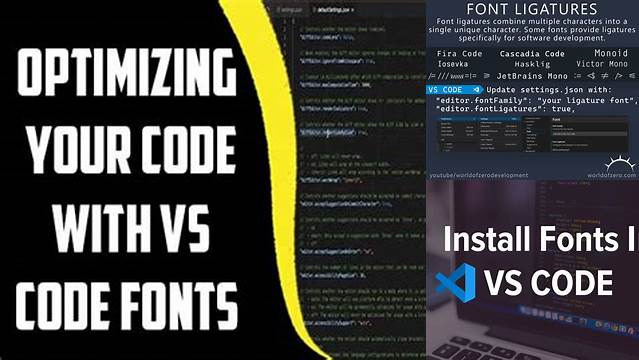
Top VSCode Fonts: Enhance Your Coding Experience
Choosing the best VSCode editor fonts can significantly impact your coding experience. A well-chosen font not only improves readability but also reduces eye strain and enhances overall productivity. Let’s dive into some of the top fonts available for VSCode that can transform the way you code, making it more enjoyable and efficient.
1. Understanding the Importance of Font Choice in VSCode
When you're spending hours coding, the best VSCode editor fonts can really make or break your experience. Think about it: staring at a screen full of code all day, every day. The right font can reduce eye strain, improve readability, and even make you a more efficient coder. A font that's easy on the eyes allows you to quickly scan through your code, spot errors, and understand complex logic without squinting or getting a headache. Plus, let's be real, a visually appealing font just makes the whole coding process more enjoyable. No one wants to code in a font that looks like it's straight out of a 1980s typewriter! So, investing a little time in finding the best VSCode editor fonts for your needs is totally worth it. You'll be doing your eyes (and your productivity) a huge favor. Consider it part of your coding setup, right alongside your keyboard and monitor. Remember, happy eyes equal happy coding!
2. Monospaced Fonts: Why They Are Preferred for Coding
Monospaced fonts are basically the superheroes of coding. What makes them so special? Well, in a monospaced font, every character takes up the same amount of horizontal space. This means that whether you're typing an 'i' or a 'W', each letter gets the same width. Why is this important for the best VSCode editor fonts? Because it creates a uniform, grid-like appearance in your code. This uniformity makes it incredibly easy to visually align code blocks, spot indentation errors, and generally read your code more clearly. Imagine trying to align columns of numbers or code in a font where some characters are wider than others—total chaos, right? Monospaced fonts eliminate that chaos, making your code cleaner and more readable. Plus, many popular coding fonts are monospaced, meaning you have plenty of options to choose from. So, if you're serious about writing clean, readable code, monospaced fonts are definitely the way to go. They're a staple in the coding world for a reason!
3. Top Font Recommendations for VSCode in 2024
Alright, let’s get to the fun part: picking out some awesome fonts! For the best VSCode editor fonts in 2024, there are some fantastic options. Fira Code is a super popular choice. It includes programming ligatures, which combine certain character combinations into single symbols, making your code more readable and visually appealing. Another great option is JetBrains Mono, designed specifically for developers. It’s clean, clear, and optimized for long hours of coding. Source Code Pro is another favorite, known for its excellent readability and versatility. It's a classic choice that works well for almost any coding language. And if you're looking for something a bit different, check out Cascadia Code, a font developed by Microsoft. It’s modern, sleek, and also includes ligatures. Each of these fonts has its own unique style and features, so it’s worth trying a few to see which one you like best. Remember, the best VSCode editor fonts is the one that feels the most comfortable and readable to you. Happy font hunting!
4. Fira Code: The Popular Choice with Ligatures
Fira Code has become a rockstar in the coding font world, and for good reason. The main appeal? Ligatures! These aren't your grandma's ligatures from calligraphy class. In Fira Code, ligatures combine common coding symbols (like !=, =>, or ===) into single, more readable characters. This makes your code look cleaner and can help you spot logical errors more easily. For instance, instead of seeing three separate equal signs, you see one continuous line, which is much easier on the eyes. Beyond ligatures, Fira Code is also just a well-designed monospaced font. It’s clear, legible, and comes in a variety of weights to suit your preferences. Many developers swear by Fira Code because it reduces visual clutter and makes code easier to scan. If you haven't tried it yet, give it a shot! Installing it in VSCode is super easy, and you might just find that it transforms your coding experience. It’s definitely a contender for the best VSCode editor fonts, especially if you love those fancy ligatures.
5. JetBrains Mono: Designed Specifically for Developers
JetBrains Mono is like that friend who always has your back. This font was actually created by JetBrains, the folks behind some of the most popular IDEs out there. So, you know it’s designed with developers in mind. What makes JetBrains Mono so great? Well, it's all about readability. The font has been carefully crafted to reduce eye strain, even during long coding sessions. The characters are clear and distinct, and the font's design helps you quickly differentiate between similar characters (like 'l' and '1', or '0' and 'O'). This is a huge win for avoiding typos and logical errors. Plus, JetBrains Mono supports a wide range of programming languages and comes in several weights and styles. It's also free, which is always a bonus! If you're looking for a font that's specifically tailored to the needs of developers, JetBrains Mono is definitely worth checking out. It might just become your new go-to for the best VSCode editor fonts.
6. Source Code Pro: A Versatile and Readable Option
Source Code Pro is like the reliable, all-purpose tool in your coding arsenal. It's a classic monospaced font that's known for its excellent readability and versatility. Designed by Adobe, Source Code Pro is clear, clean, and easy on the eyes, making it a great choice for long coding sessions. What sets it apart is its balanced design. The characters are well-proportioned, and the font works well in a variety of sizes and resolutions. This means it looks good on both small laptop screens and large external monitors. Source Code Pro also supports a wide range of characters, including those used in many different programming languages. Plus, it comes in multiple weights, so you can choose the style that best suits your preferences. If you're looking for a font that's both reliable and versatile, Source Code Pro is definitely worth considering. It's a solid choice for the best VSCode editor fonts that won't let you down.
7. Cascadia Code: Microsoft's Modern Font with Ligatures
Cascadia Code is Microsoft's sleek and modern contribution to the world of coding fonts. What makes it special? First off, it includes ligatures, just like Fira Code. These ligatures combine common coding symbols into single, more readable characters, making your code cleaner and easier to understand. But Cascadia Code also has its own unique style. It's designed with a slightly more modern and geometric look, which some developers find particularly appealing. The font is also designed to be highly readable, with clear and distinct characters. Microsoft developed Cascadia Code for use in its new Windows Terminal, but it works perfectly well in VSCode and other code editors. If you're looking for a font that's both modern and functional, Cascadia Code is definitely worth a try. It might just be the best VSCode editor fonts you've been searching for.
8. Consolas: A Long-Standing Favorite
Consolas is like the old faithful friend in the world of coding fonts. It's been around for a while and has gained a loyal following among developers. Why? Because it's a solid, reliable, and highly readable font. Consolas was designed by Microsoft and has been included in Windows operating systems for years, so many developers are already familiar with it. What makes Consolas so appealing is its clarity and simplicity. The characters are well-defined, and the font is easy on the eyes, even during long coding sessions. It's a no-frills font that just gets the job done. While it doesn't have fancy ligatures or a super modern design, Consolas is a great choice if you're looking for a dependable and comfortable font for coding. It's a classic for a reason and remains a strong contender for the best VSCode editor fonts.
9. Dank Mono: A Premium Option with a Unique Aesthetic
Dank Mono is the fancy, premium option in the coding font world. It's not free like many of the other fonts on this list, but it has a unique aesthetic that some developers are willing to pay for. What makes Dank Mono so special? Well, it has a distinctive, slightly rounded design that gives it a warm and approachable feel. The characters are clear and well-defined, and the font is designed to be highly readable. Dank Mono also includes ligatures, which combine common coding symbols into single, more readable characters. However, the ligatures in Dank Mono are a bit more subtle and refined than those in some other fonts. If you're looking for a font that's both functional and visually appealing, Dank Mono is definitely worth considering. Just be prepared to shell out a bit of cash for it. It might just be the best VSCode editor fonts if you value that unique aesthetic.
10. Operator Mono: Another Stylish Paid Font
Operator Mono is another stylish, paid font that's popular among developers who want a premium coding experience. Like Dank Mono, it's not free, but it offers a unique look and feel that some developers find worth the investment. What makes Operator Mono stand out? It has a distinctive italic style that's used for comments and keywords, which can help you visually differentiate different parts of your code. The font also has a clean and modern design, with clear and readable characters. Operator Mono also includes ligatures, which combine common coding symbols into single, more readable characters. However, the ligatures in Operator Mono are a bit more subtle and refined than those in some other fonts. If you're looking for a font that's both functional and visually appealing, and you're willing to pay for it, Operator Mono is definitely worth checking out. It might just be the best VSCode editor fonts for you.
11. How to Install and Configure Fonts in VSCode
Okay, so you've found the best VSCode editor fonts of your dreams. Now what? Let's get it installed and set up in VSCode. First, you need to download the font file (usually a .ttf or .otf file) from the font's website or repository. Once you've downloaded the file, you need to install it on your operating system. On Windows, you can do this by right-clicking the font file and selecting "Install." On macOS, you can double-click the font file and then click "Install Font" in the Font Book app. After the font is installed, open VSCode and go to File > Preferences > Settings (or Code > Preferences > Settings on macOS). In the Settings editor, search for "editor.fontFamily." Then, enter the name of the font you installed, making sure to enclose it in single quotes (e.g., 'Fira Code'). You can also adjust the font size and line height in the settings if you want. That's it! Your new font should now be displayed in VSCode. Happy coding!
12. Adjusting Font Size and Line Height for Optimal Readability
Once you've picked out the best VSCode editor fonts, don't just stop there! Tweaking the font size and line height can make a huge difference in readability. Think of it like adjusting the seat and mirrors in your car – you want everything just right for optimal comfort and visibility. A font that's too small can strain your eyes, while one that's too large can make your code look cluttered. Similarly, line height (the space between lines of text) can affect how easily you can scan through your code. VSCode makes it easy to adjust these settings. Just go to File > Preferences > Settings (or Code > Preferences > Settings on macOS) and search for "editor.fontSize" and "editor.lineHeight." Experiment with different values until you find a combination that feels comfortable and easy on your eyes. A good starting point is a font size of 12-14 points and a line height of 1.5-1.6. But ultimately, the best VSCode editor fonts is the one that feels right for you!
13. Using Font Ligatures to Enhance Code Clarity
Font ligatures are like little magic tricks for your code. They combine certain character combinations into single, more readable symbols, making your code cleaner and easier to understand. For example, instead of seeing !=, a font with ligatures might display a single symbol that looks like an inequality sign. Similarly, => might become a single arrow. This can reduce visual clutter and make your code more readable, especially when you're dealing with complex expressions. Many popular coding fonts, like Fira Code and Cascadia Code, include ligatures. To enable ligatures in VSCode, you need to make sure you're using a font that supports them, and then enable font ligatures in your VSCode settings. Go to File > Preferences > Settings (or Code > Preferences > Settings on macOS) and search for "editor.fontLigatures." Then, set the value to true or 'enabled'. Once you've done that, your ligatures should start working! It’s one of the best VSCode editor fonts enhancements, you won't regret it!
14. Exploring Different Font Weights and Styles
Fonts aren't just about the characters themselves; they also come in different weights and styles, which can affect how your code looks and feels. Font weight refers to how thick or thin the characters are. Common weights include regular, bold, and light. A heavier font weight can make your code stand out more, while a lighter weight can give it a more subtle look. Font style refers to variations like italic or oblique. Italic is often used for comments or keywords to help them stand out from the rest of the code. VSCode allows you to customize the font weight and style in your settings. Just go to File > Preferences > Settings (or Code > Preferences > Settings on macOS) and search for "editor.fontWeight" and "editor.fontStyle." Experiment with different values to find a combination that you like. Keep in mind that not all fonts support all weights and styles, so you might need to try a few different fonts to find one that has the options you want. The best VSCode editor fonts is all about finding your perfect balance!
15. Considerations for Dark vs. Light Themes
When choosing the best VSCode editor fonts, it's essential to consider whether you're using a dark or light theme. What looks great on a light background might not be as readable on a dark background, and vice versa. For example, a font with a very thin weight might be difficult to read on a dark background, as the characters can blend in with the background. On the other hand, a font with a very heavy weight might be too overpowering on a light background. Similarly, the color of your text can affect how readable a font is. If you're using a dark theme, you might want to choose a font that's slightly lighter in color to provide better contrast. If you're using a light theme, you might want to choose a font that's slightly darker. VSCode allows you to customize the font color and background color in your settings, so you can tweak these settings to find a combination that works well for your chosen font and theme.
16. Fonts Optimized for Different Screen Resolutions
The best VSCode editor fonts is not a one-size-fits-all. A font that looks crisp and clear on a high-resolution monitor might appear blurry or pixelated on a lower-resolution screen. This is because fonts are designed with a specific pixel density in mind. If you're using a high-resolution display (like a 4K monitor), you'll want to choose a font that's optimized for high resolutions. These fonts typically have more detail and are designed to look sharp even at small sizes. On the other hand, if you're using a lower-resolution display, you might want to choose a font that's designed to be readable at lower resolutions. These fonts typically have simpler designs and are optimized for clarity rather than detail. Many font websites and repositories will indicate whether a font is optimized for high or low resolutions. You can also try experimenting with different fonts and sizes to see what looks best on your screen.
17. The Impact of Font Choice on Coding Speed and Accuracy
Believe it or not, the best VSCode editor fonts can actually impact your coding speed and accuracy. A font that's easy to read can help you quickly scan through your code, spot errors, and understand complex logic. This can save you time and reduce the likelihood of making mistakes. On the other hand, a font that's difficult to read can slow you down and make it harder to find errors. If you're constantly squinting or straining your eyes, you're more likely to make mistakes. The right font can also help you differentiate between similar characters, like 'l' and '1' or '0' and 'O'. This can be especially important when you're working with code that uses a lot of similar characters. Ultimately, the best VSCode editor fonts is the one that allows you to code comfortably and efficiently. It's worth taking the time to experiment with different fonts and settings to find what works best for you.
18. Fonts for Programmers with Visual Impairments
For programmers with visual impairments, choosing the best VSCode editor fonts is even more critical. A font that's designed for accessibility can make a huge difference in their ability to code comfortably and efficiently. There are several factors to consider when choosing a font for programmers with visual impairments. First, the font should be highly readable, with clear and distinct characters. It should also have good contrast against the background. Some fonts are specifically designed for people with low vision or dyslexia. These fonts often have larger character sizes, wider spacing, and simpler designs. VSCode also has several accessibility features that can help programmers with visual impairments. These include the ability to adjust the font size, color contrast, and zoom level. By combining the right font with the right VSCode settings, programmers with visual impairments can create a coding environment that works well for them.
19. Customizing VSCode Themes to Complement Your Font
Choosing the best VSCode editor fonts is only half the battle. To really create a coding environment that you love, you need to customize your VSCode theme to complement your font. A well-chosen theme can enhance the readability of your font and make your code look more visually appealing. VSCode has a wide variety of themes to choose from, ranging from light and airy to dark and moody. You can also create your own custom themes if you want. When choosing a theme, consider the color palette and the contrast between the text and the background. A theme with good contrast will make your font easier to read. You should also choose a theme that complements the style of your font. For example, if you're using a modern and minimalist font, you might want to choose a theme with a similar aesthetic. To change your VSCode theme, go to File > Preferences > Color Theme (or Code > Preferences > Color Theme on macOS) and choose a theme from the list.
20. Exploring Alternative Code Editors and Their Font Options
While VSCode is a popular and powerful code editor, it's not the only option out there. There are many other code editors that offer different features and font options. Some popular alternatives include Sublime Text, Atom, and IntelliJ IDEA. Sublime Text is known for its speed and simplicity. It has a clean and minimalist interface and supports a wide variety of fonts. Atom is a highly customizable code editor that's built on web technologies. It has a large community of users and developers and offers a wide variety of themes and plugins. IntelliJ IDEA is a powerful IDE (Integrated Development Environment) that's designed for Java development. It has a wide range of features and supports a variety of fonts. Each code editor has its own strengths and weaknesses, so it's worth exploring a few different options to see which one works best for you. And, of course, each editor has its own set of options for the best VSCode editor fonts.
21. Fonts That Support Multiple Languages and Characters
If you're coding in multiple languages or working with international characters, it's important to choose a font that supports those languages and characters. Not all fonts include glyphs for every language or character set. If you're working with a language that uses special characters (like accents or diacritics), you'll need to choose a font that includes those characters. Similarly, if you're working with a language that uses a different script (like Cyrillic or Chinese), you'll need to choose a font that supports that script. Many popular coding fonts support a wide range of languages and characters, but it's always a good idea to check before you commit to a font. You can usually find information about a font's language support on the font's website or repository. The best VSCode editor fonts are the ones that let you code in any language without missing a beat!
22. Fonts with Clear Differentiation Between Similar Characters
One of the most frustrating things about coding is mistaking similar characters, like the number 1 and the lowercase letter l, or the number 0 and the uppercase letter O. This can lead to syntax errors and logical errors that are difficult to track down. To avoid these problems, it's important to choose a font with clear differentiation between similar characters. A good font will make it easy to tell the difference between these characters at a glance. Some fonts even include special design features to help differentiate similar characters. For example, some fonts might add a small hook to the lowercase letter l to distinguish it from the number 1. When you're evaluating different fonts, pay close attention to how well they differentiate similar characters. The best VSCode editor fonts save you from silly typos and make your code cleaner.
23. The Role of Anti-Aliasing in Font Rendering
Anti-aliasing is a technique that's used to smooth out the edges of fonts and other graphical elements on a computer screen. Without anti-aliasing, fonts can appear jagged or pixelated, especially at smaller sizes. Anti-aliasing works by blending the colors of the pixels along the edges of the font, which creates a smoother and more visually appealing appearance. Most operating systems and code editors support anti-aliasing, but the quality of the anti-aliasing can vary. If you're using a font that looks blurry or pixelated, you might want to try adjusting your anti-aliasing settings. In VSCode, you can adjust the anti-aliasing settings by going to File > Preferences > Settings (or Code > Preferences > Settings on macOS) and searching for "editor.renderType". Experimenting with different anti-aliasing settings can help you find the best VSCode editor fonts rendering for your screen.
24. Fonts That Minimize Eye Strain During Long Coding Sessions
If you spend long hours coding, it's important to choose a font that minimizes eye strain. Eye strain can lead to headaches, blurred vision, and other discomforts. To minimize eye strain, choose a font that's easy to read, with clear and distinct characters. You should also choose a font with good contrast against the background. Avoid fonts that are too thin or too decorative, as these can be difficult to read. It's also important to adjust the font size and line height to your liking. A font that's too small or too large can strain your eyes. Similarly, a line height that's too small or too large can make it difficult to scan through your code. Experimenting with different fonts and settings can help you find the best VSCode editor fonts for long coding sessions.
25. Using Custom CSS to Override VSCode's Default Font Settings
VSCode provides a lot of options for customizing your font settings, but sometimes you might want to go even further. One way to do this is to use custom CSS to override VSCode's default font settings. This allows you to fine-tune the appearance of your font and create a truly unique coding environment. To use custom CSS in VSCode, you'll need to install a plugin like "Customize UI." This plugin allows you to inject custom CSS into VSCode's user interface. Once you've installed the plugin, you can create a CSS file and add your custom font settings to it. For example, you can change the font family, font size, font weight, and line height. You can also use CSS to customize the appearance of other elements in VSCode, like the background color and the syntax highlighting. Using custom CSS gives you ultimate control over the appearance of your best VSCode editor fonts setup.
26. Fonts Inspired by Typewriters: A Retro Aesthetic
For those who appreciate a vintage aesthetic, fonts inspired by typewriters can add a unique touch to your coding environment. These fonts often have a monospaced design and a slightly rugged appearance, reminiscent of old typewritten documents. While they might not be the most practical choice for all coding situations, they can be a fun way to express your personal style. Some popular typewriter-inspired fonts include Courier Prime, Anonymous Pro, and Fira Mono. These fonts can add a touch of nostalgia to your coding experience and make it feel like you're working on a classic piece of technology. If you're looking for something a little different, a typewriter-inspired font might be the best VSCode editor fonts for you.
27. The Psychology of Fonts: How Fonts Affect Your Mood and Focus
Believe it or not, fonts can actually affect your mood and focus. Different fonts can evoke different emotions and feelings. For example, a font with a clean and modern design might make you feel more focused and efficient, while a font with a more playful design might make you feel more creative and relaxed. The psychology of fonts is a complex field, but there are some general guidelines you can follow. If you're trying to focus on a task, choose a font that's clear, simple, and easy to read. Avoid fonts that are too decorative or distracting. If you're trying to be creative, choose a font that's more playful and expressive. Experiment with different fonts and see how they make you feel. The best VSCode editor fonts are the ones that put you in the right mindset for coding.
28. Resources for Finding Free and Premium Coding Fonts
Finding the best VSCode editor fonts can be a fun but sometimes overwhelming task. Luckily, there are plenty of resources available to help you discover both free and premium coding fonts. Websites like Google Fonts, Font Squirrel, and DaFont offer a wide selection of free fonts that are suitable for coding. For premium fonts, you can check out sites like MyFonts, Adobe Fonts, and Monotype. These sites offer high-quality fonts that are designed by professional typographers. You can also find coding fonts on GitHub and other code repositories. Many developers create their own custom fonts and share them with the community. When you're searching for coding fonts, be sure to look for fonts that are monospaced, easy to read, and support the languages and characters you need.
29. Testing Different Fonts: A/B Testing for Your Code Editor
Just like you A/B test different designs for your website, you can also A/B test different fonts for your code editor. This involves trying out different fonts for a period of time and then evaluating which font you prefer. To A/B test fonts, you can simply switch between different fonts in your VSCode settings and see which one feels the most comfortable and efficient. You can also ask your colleagues or friends for their opinions. Pay attention to how well you can read the font, how much eye strain it causes, and how it affects your overall coding experience. After testing different fonts, you can make an informed decision about which font is the best VSCode editor fonts for you. This is one of the smartest way to find what is perfect for you!
30. Future Trends in Coding Fonts and Typography
The world of coding fonts and typography is constantly evolving. New fonts are being created all the time, and existing fonts are being updated with new features and improvements. Some future trends in coding fonts include variable fonts, which allow you to adjust the weight, width, and other characteristics of a font on the fly; color fonts, which support multiple colors in a single font; and accessibility-focused fonts, which are designed to be easy to read for people with visual impairments. As technology continues to advance, we can expect to see even more innovation in coding fonts and typography. The best VSCode editor fonts of the future will be even more readable, customizable, and accessible than the fonts we have today.